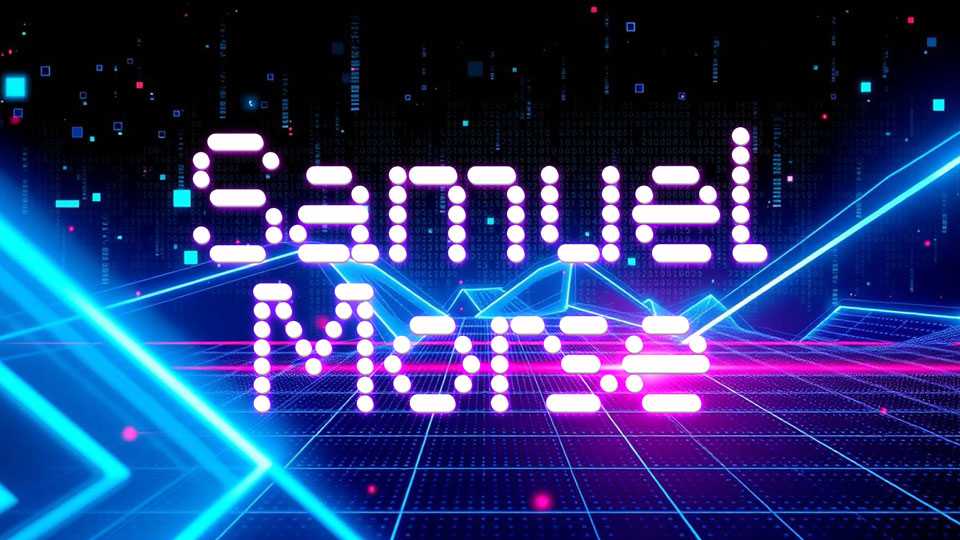
Download Samuel Morse font, a typeface created out of the telegraphic language of Samuel Morse – dots and dashes. Clean, clear and perfect for those scifi applications.
Designer: Rob Hindley